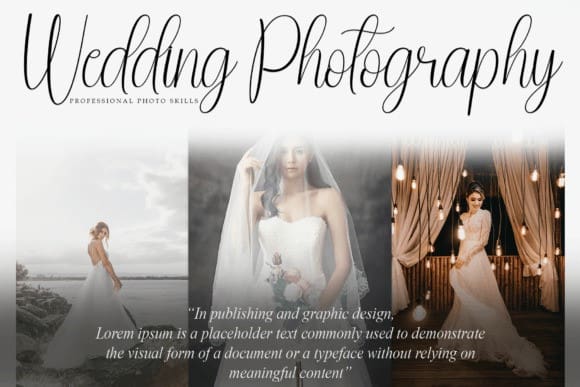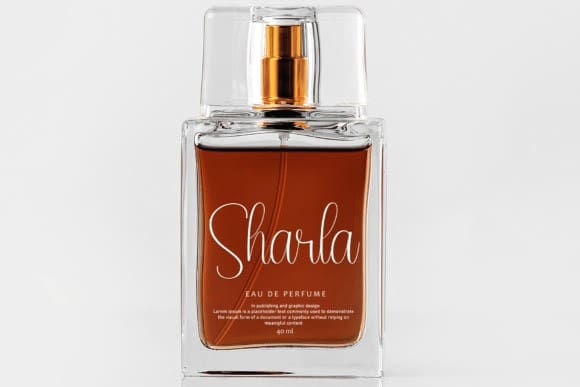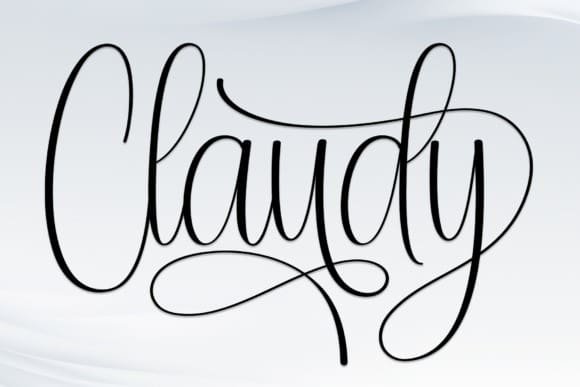
Claudy Script Font
Claudy Script Font is a sweet and friendly handwritten font. Fresh and casual, this font is ideal for writing wedding invitations, cards, or any other design that might need a lovely touch.